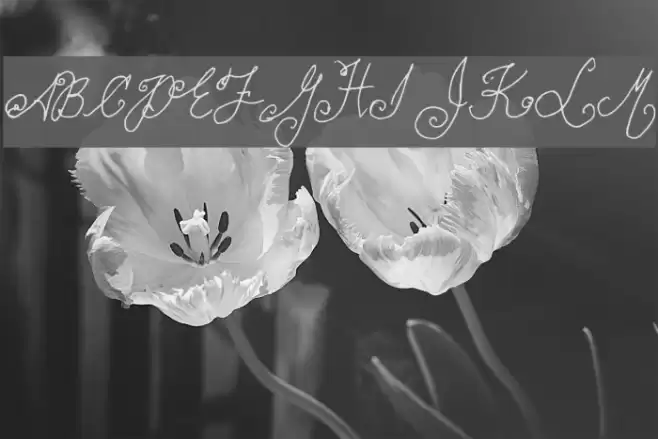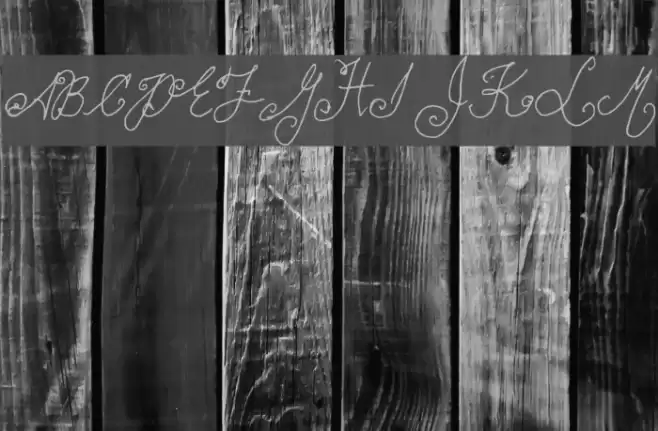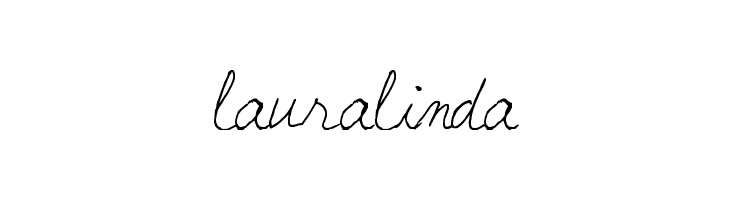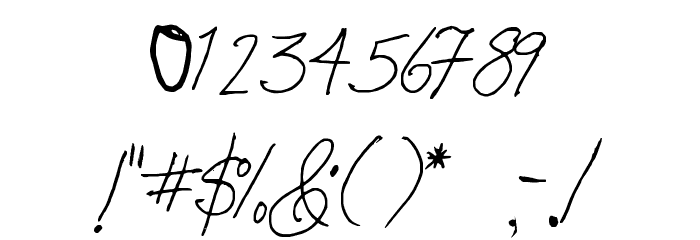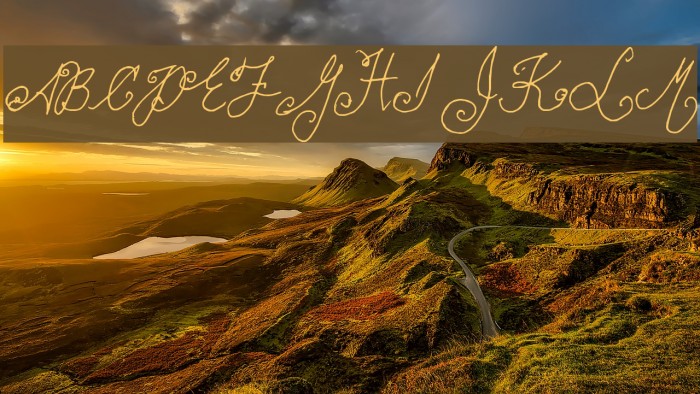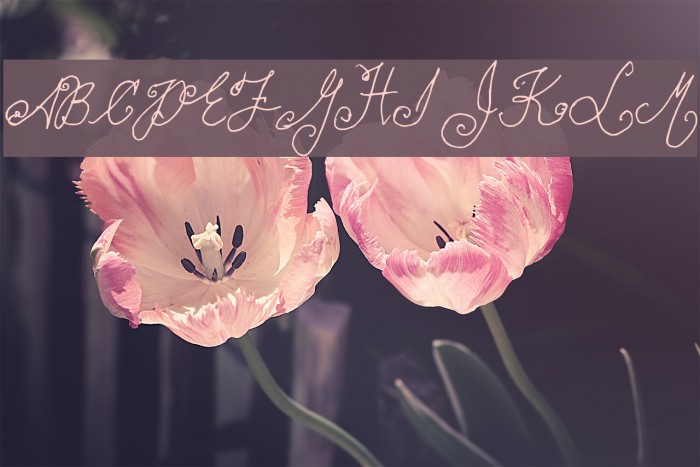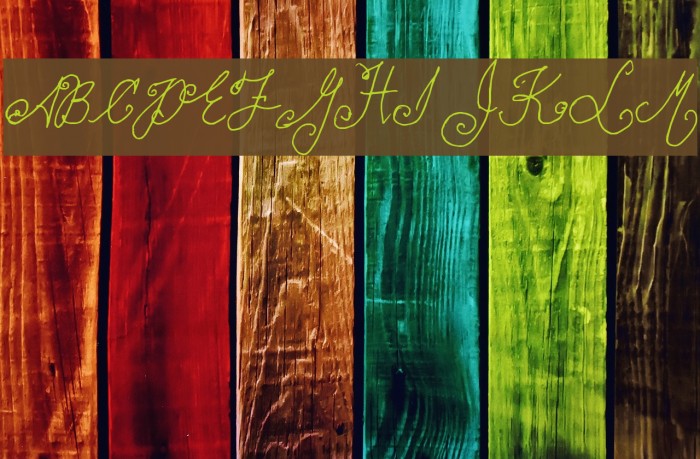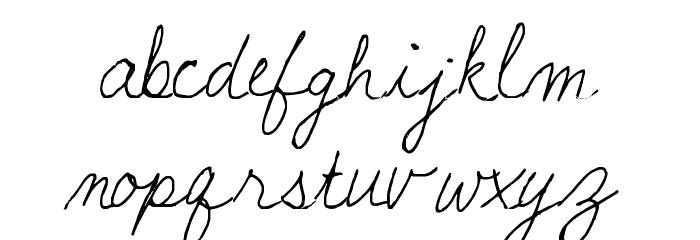
lauralinda Font
lauralinda Description
This font features an elegant and flowing script style, characterized by its intricate loops and swirls. Each letter is crafted with a sense of fluidity and grace, making it ideal for conveying a sense of sophistication and creativity. The uppercase letters are particularly ornate, with decorative flourishes that add a touch of whimsy. The lowercase letters maintain a consistent style, offering a harmonious balance between readability and artistic expression. Numbers and special characters are designed to complement the overall aesthetic, ensuring a cohesive look across all text elements.
An elegant and flowing script font with intricate loops and swirls from Uncategorized fonts.
- Proposed Projects: Ideal for wedding invitations, greeting cards, branding, and elegant logos.
- Use Case: Logos, Invitations, Decorative text